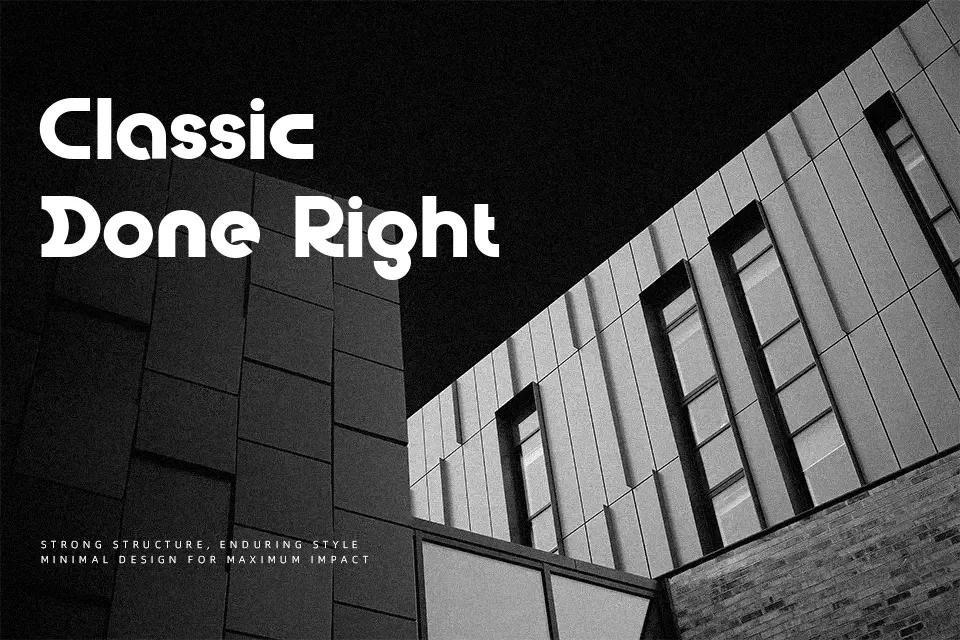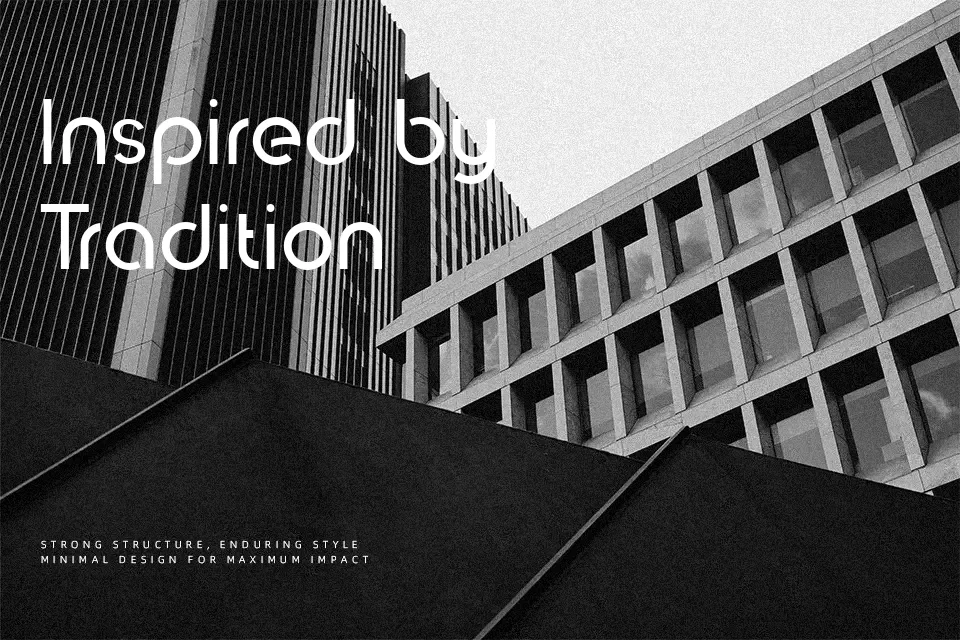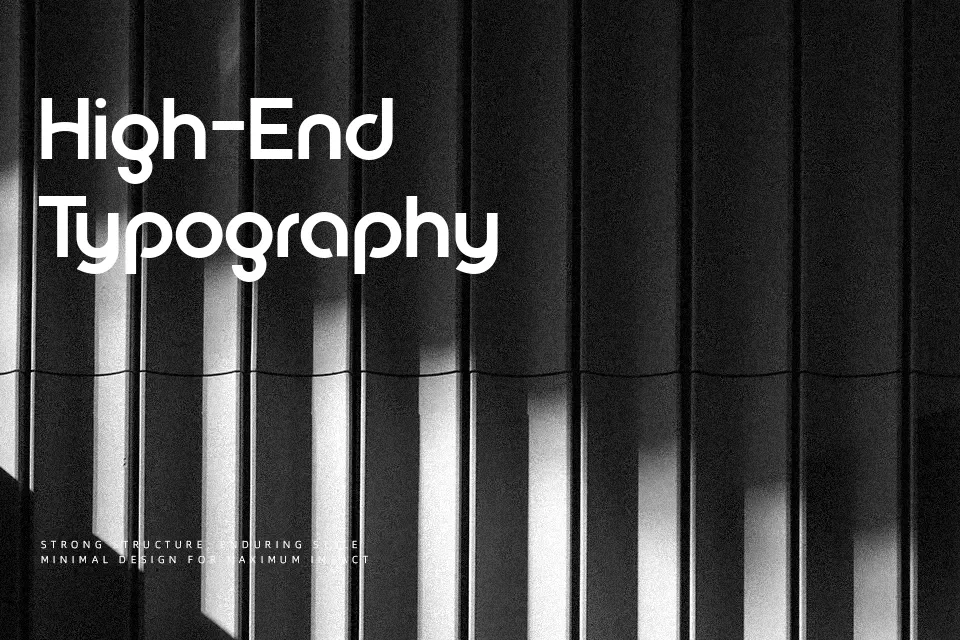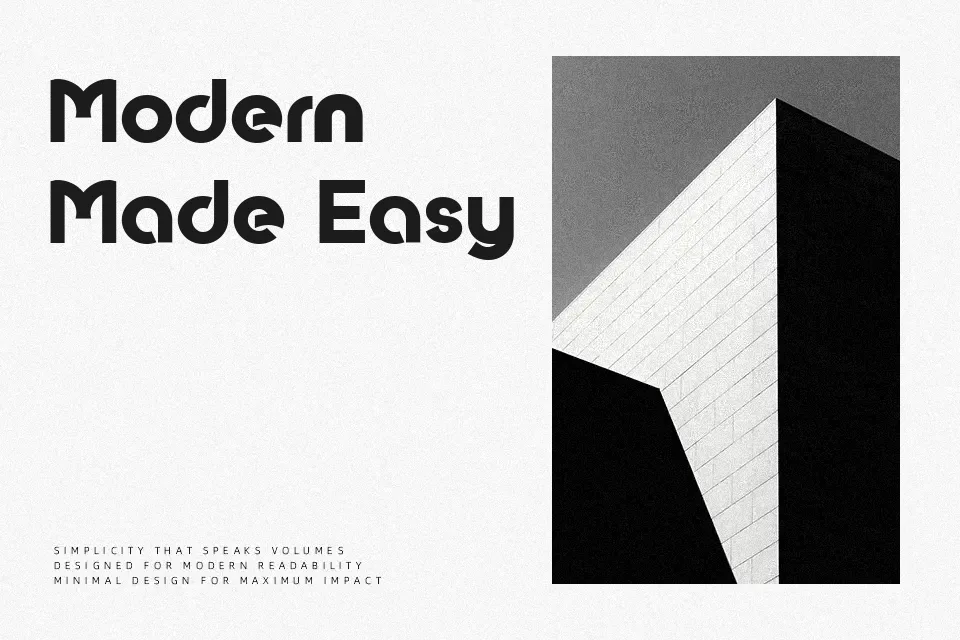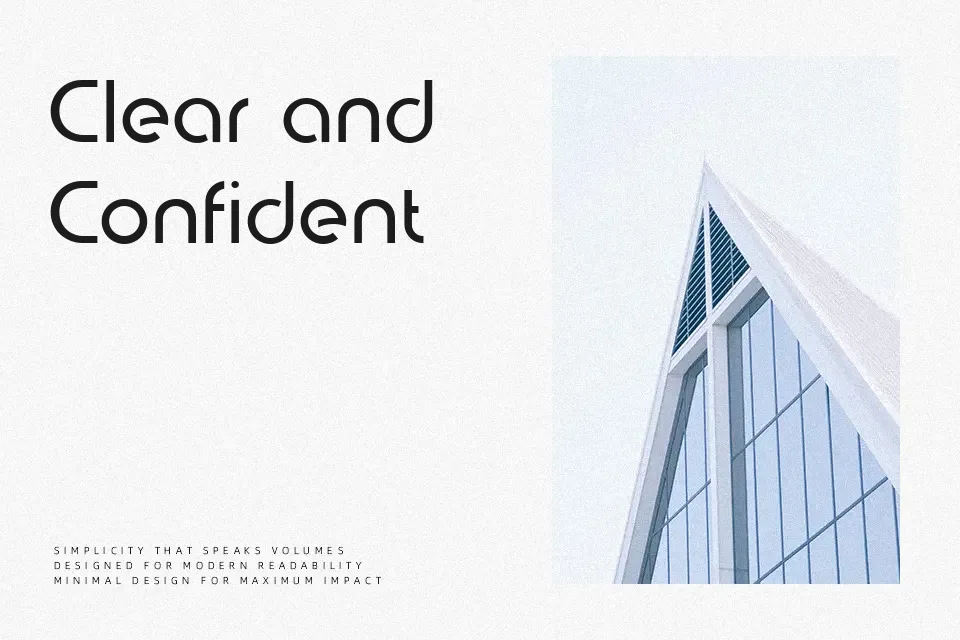
Urial Font
Designed by 177Studio
Built around balanced geometric construction and clean unmodulated strokes, Urial Font establishes an orderly visual presence across uppercase and lowercase letterforms. The typeface features generous interior counters, consistent stroke thickness, and open spacing that maintain strong legibility in display environments. While larger headlines and promotional layouts showcase its crisp terminals effectively, long body paragraphs and dense editorial layouts become fatiguing over extended reading sessions due to the uniform rhythm. The typeface performs best when displayed at larger sizes where its sharp geometric structure can command visual attention without compromising character distinction.
Best For: website hero headlines, modern poster designs, brand identity projects, packaging labels
Not Ideal For: dense editorial layouts, long paragraph text, mobile system body copy
Perfect for branding, headline, and packaging, with a clean and display style.